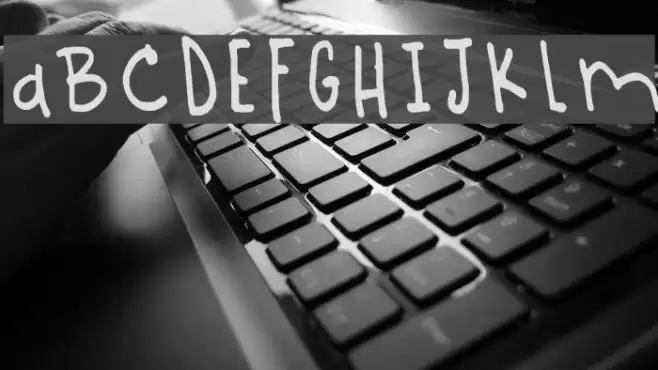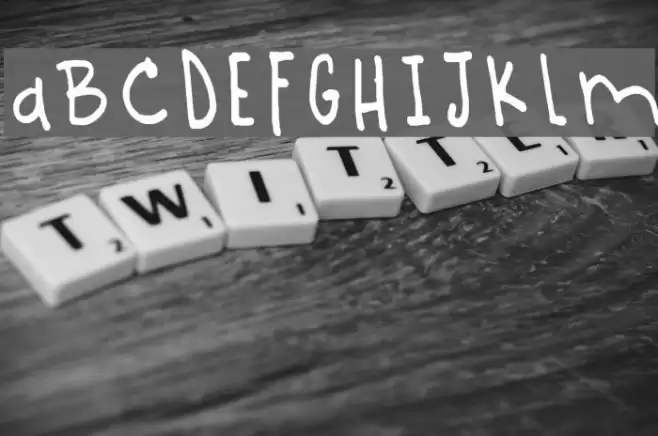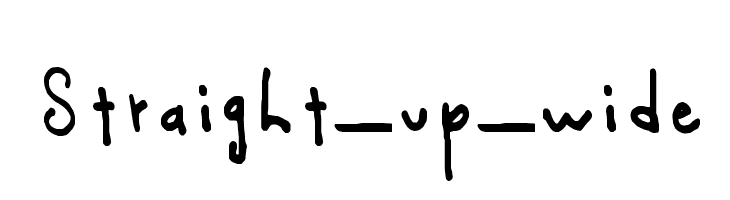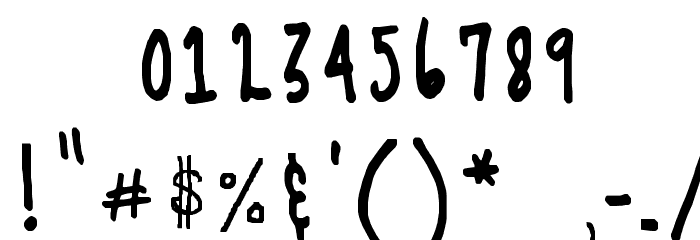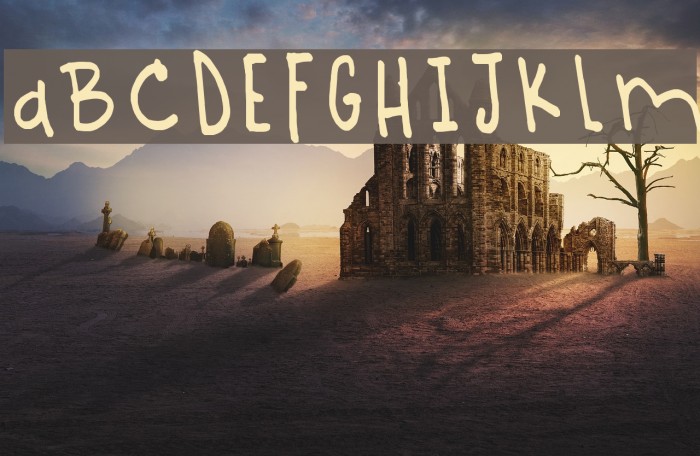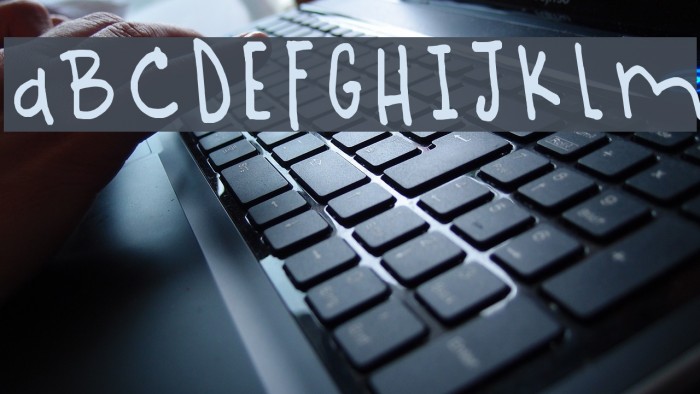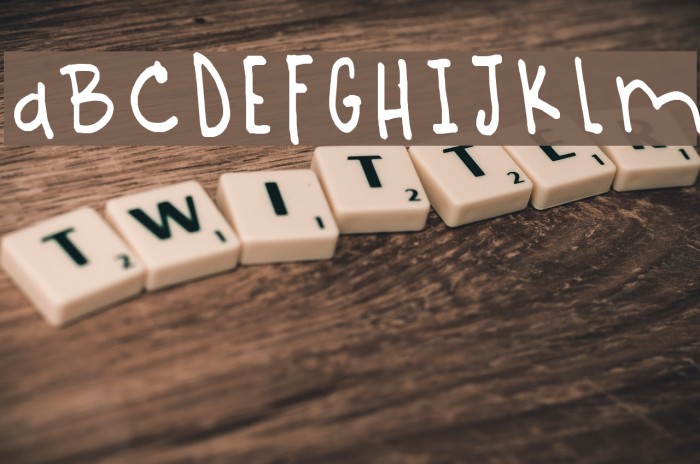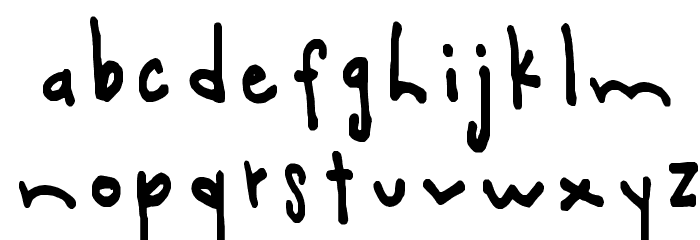
Straight_up_wide Font
Straight_up_wide Description
This font exhibits a playful and informal handwritten style, characterized by its uneven strokes and slightly irregular letterforms. The uppercase and lowercase letters maintain a consistent yet quirky appearance, with a noticeable tilt and varied line thickness that adds to its charm. The numerals and special characters follow the same whimsical design, making the font suitable for creative and casual applications. Its unique personality is conveyed through its imperfect lines and spontaneous feel, which can add a personal touch to any project.
A playful, handwritten font with uneven strokes and a quirky, informal style from Uncategorized fonts.
- Proposed Projects: Ideal for greeting cards, children's books, casual invitations, and creative branding projects.
- Overall Style: Casual, Playful
- Use Case: Headlines, Informal text, Creative projects